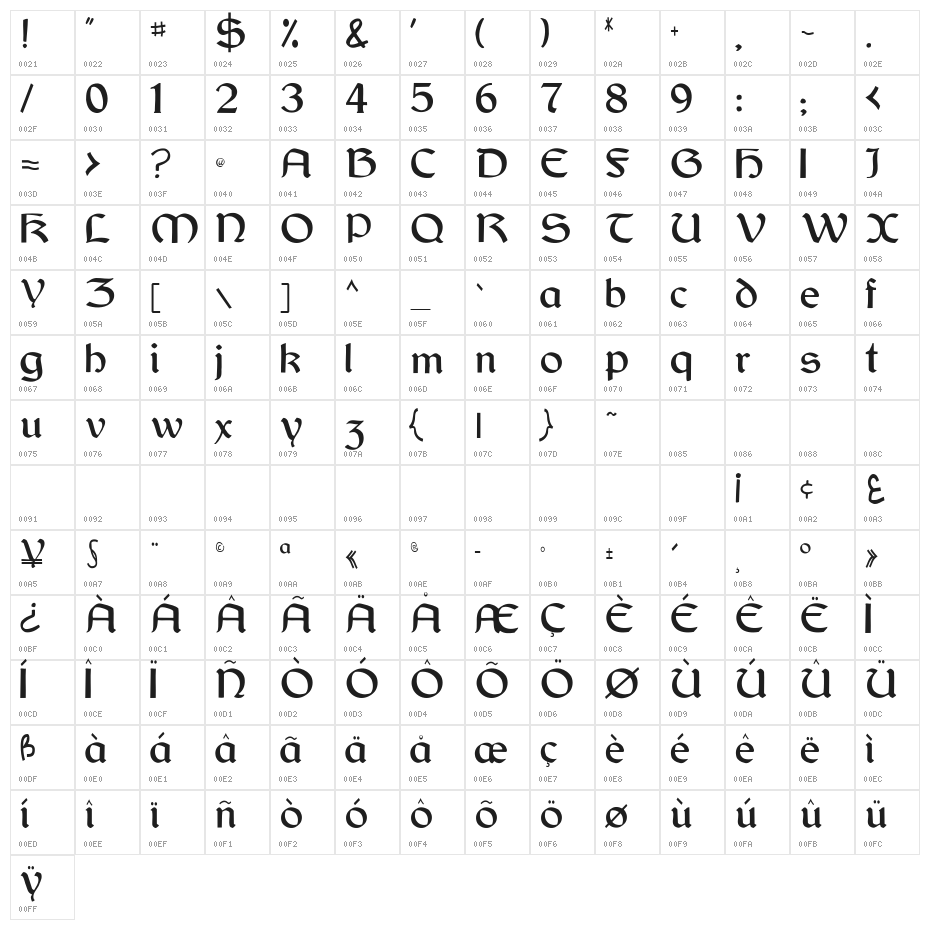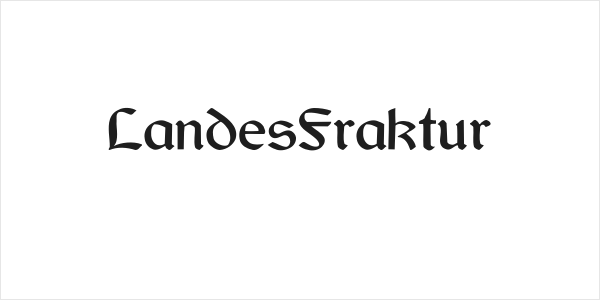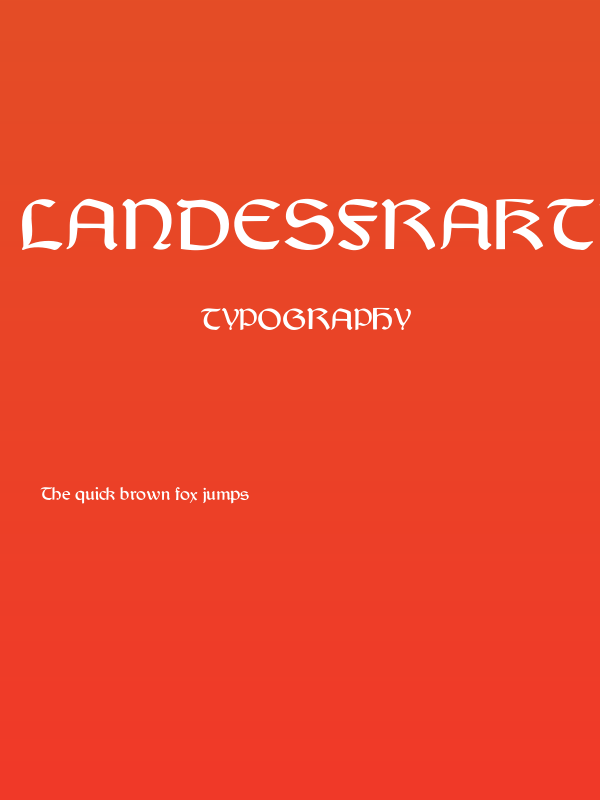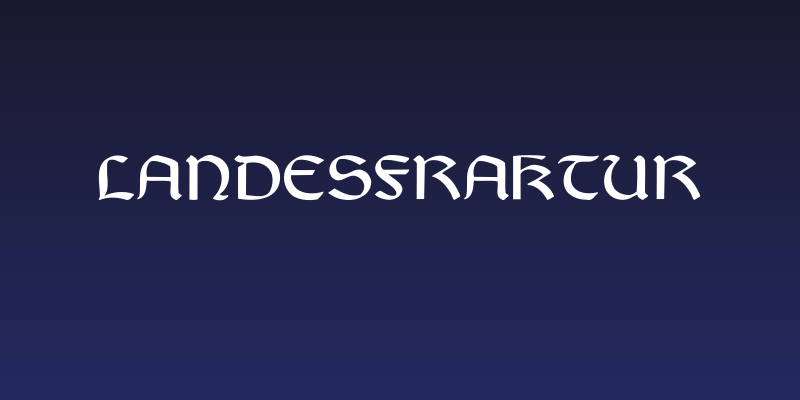
LandesFraktur Font
LandesFraktur Description
This font embodies the traditional and ornate characteristics of Blackletter typefaces, with its intricate and angular letterforms. The uppercase letters are bold and commanding, featuring sharp edges and dramatic curves that evoke a sense of historical elegance. The lowercase letters maintain a consistent style, with unique flourishes that enhance their visual appeal. Numbers and special characters are crafted with the same attention to detail, ensuring a cohesive look across all elements. This font is perfect for projects that require a touch of classic sophistication and a nod to medieval or Gothic aesthetics.
Overall StyleVintage
Proposed ProjectsIdeal for historical documents, certificates, book covers, and branding that requires a classic or Gothic touch.